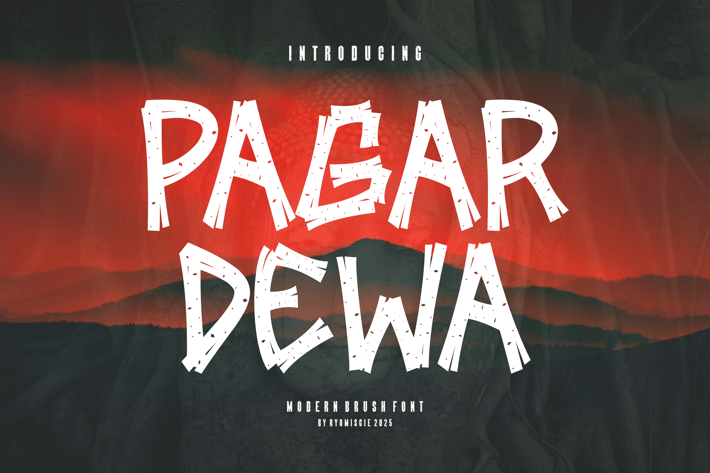
Pagar Dewa - Modern Brush Font
Introducing our new product Pagar Dewa Font - Modern Brush Font
Pagar Dewa Font- Modern Font is a bold and authentic display font. The font is suitable for any branding project like logo,
t-shirt printing, esport, and many more. outstanding in a wide range of contexts.
* Pagar Dewa Uppercase